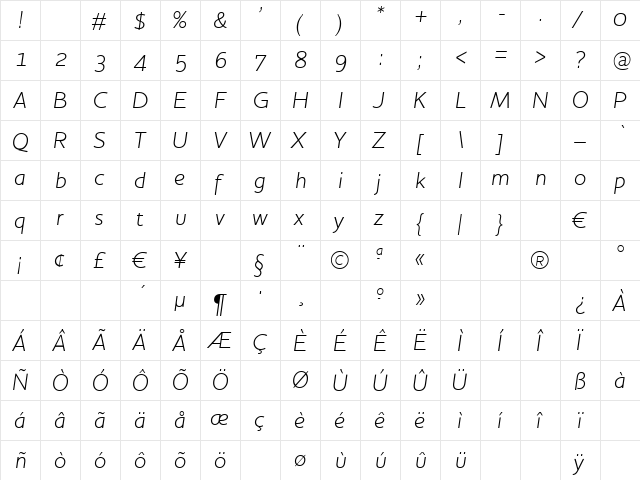
HouschkaAltLightItalic Regular Font Preview
Design Context for HouschkaAltLightItalic Typeface
HouschkaAltLightItalic takes a measured approach to typography — its balanced proportions and neutral character make it a reliable workhorse for both digital and print work. Its italic angle brings a sense of urgency and motion to the letterforms. The delicate stroke weight brings airiness and refinement to layouts.
Pro Tip: Try HouschkaAltLightItalic for annotation and caption copy alongside an upright companion — the contrast in angle creates a dynamic but ordered typographic system.